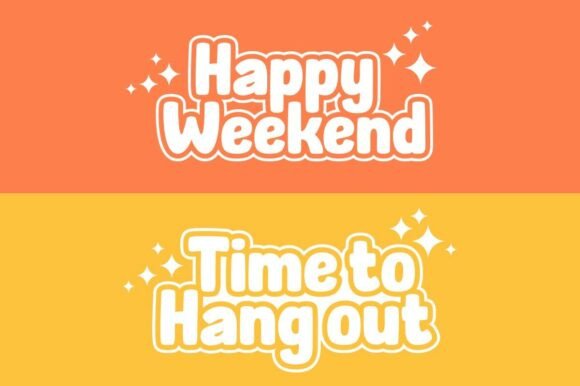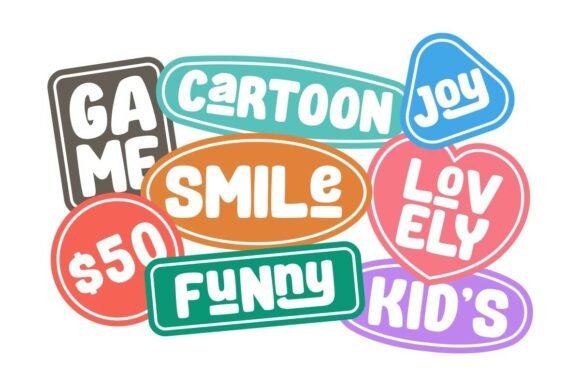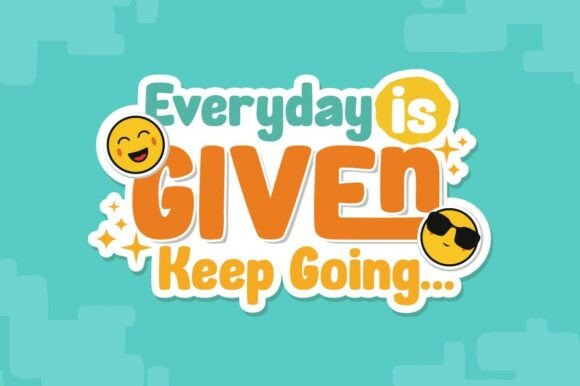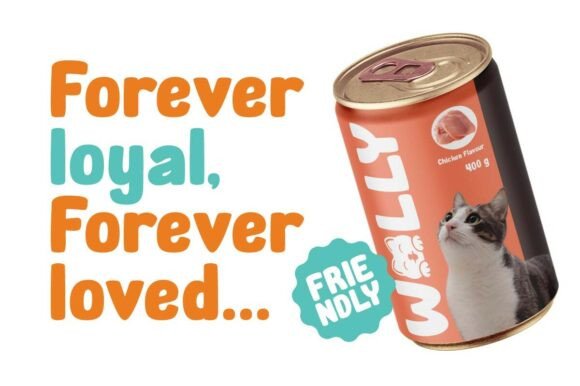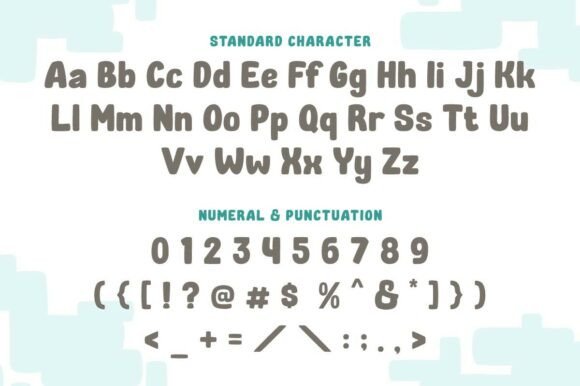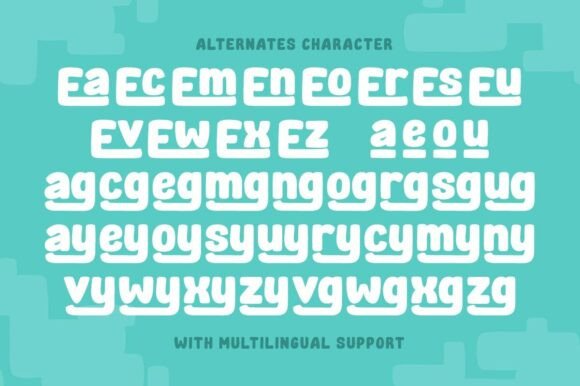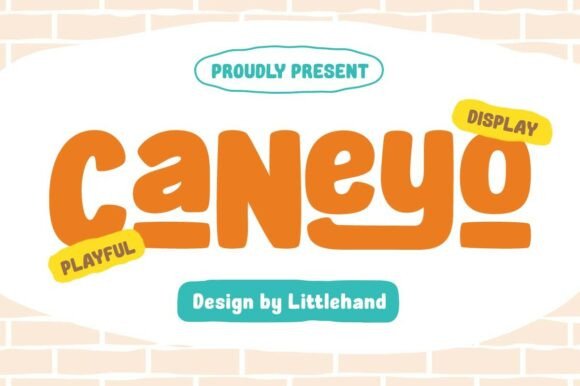
Caneyo Font: The Boldly Playful Typeface That’s Full of Spirit
Are you tired of using the same old fonts that seem to blend into the background? Look no further than Caneyo, a bold and playful font that’s sure to bring instant fun to your designs. With its chunky shapes, soft corners, and bouncy letterforms, Caneyo feels friendly, confident, and full of energy. It’s like colorful cut-paper titles on a creative board, jumping off the page and demanding attention.
The Characteristics of Caneyo
So, what makes Caneyo so special? For starters, its thick strokes give it strong visibility, making it perfect for headlines, titles, and other applications where you want to make a bold statement. But it’s not just about being loud and bold – Caneyo also has a softer side, with rounded details that keep everything warm and approachable.
One of the standout features of Caneyo is its rounded corners. In a world where sharp angles and pointed corners are the norm, Caneyo’s gentle curves make it a breath of fresh air. This font doesn’t just sit on the page; it jumps off it with a sense of joy and spontaneity, making it perfect for designs that need a little extra personality.
The Perfect Font for Youth-Oriented Branding
Caneyo is an absolute standout for youth-oriented branding, with its friendly weight and playful vibe making it a natural fit for designs aimed at a younger audience. Whether you’re creating a logo, packaging, or marketing materials, Caneyo is sure to resonate with kids and adults alike. Its energetic and fun personality makes it perfect for brands that want to seem approachable, youthful, and vibrant.
Imagine using Caneyo for a kids’ party invitation, a youth-oriented magazine, or even a social media campaign aimed at teenagers. The font’s bold and playful personality would instantly grab attention and convey a sense of excitement and energy. And with its thick strokes and rounded details, Caneyo is also a great choice for packaging design, adding a pop of color and personality to product labels and branding materials.
Caneyo in Action
So, how can you use Caneyo in your designs? The possibilities are endless! Here are a few ideas to get you started:
- Party invitations: Use Caneyo to create bold and playful invitations that set the tone for a fun and energetic party.
- Youth-oriented branding: Caneyo is perfect for logos, marketing materials, and other branding elements aimed at a younger audience.
- Packaging design: Add a pop of personality to product labels and branding materials with Caneyo’s bold and playful font.
- Social media headlines: Use Caneyo to create bold and attention-grabbing headlines that stand out on social media.
Why Designers and Crafters Love Caneyo
Designers and crafters love Caneyo for its unique combination of boldness and playfulness. This font is perfect for creatives who want to add a little extra personality to their designs, making it a great choice for:
- DIY projects: Use Caneyo to add a personal touch to DIY projects, such as handmade cards, invitations, and decorations.
- Crafting: Caneyo is perfect for crafters who want to add a bold and playful touch to their creations, such as knitting patterns, sewing projects, and paper crafts.
- Graphic design: Caneyo is a great choice for graphic designers who want to create bold and attention-grabbing designs, such as posters, flyers, and brochures.
In conclusion, Caneyo is a boldly playful font that’s full of spirit and personality. With its chunky shapes, soft corners, and bouncy letterforms, it’s the perfect choice for designers and crafters who want to add a little extra fun to their designs. Whether you’re working on a youth-oriented branding project, creating party invitations, or just want to add some personality to your DIY projects, Caneyo is the perfect tool for the job. So why settle for boring, generic fonts when you can use Caneyo to make a bold statement?